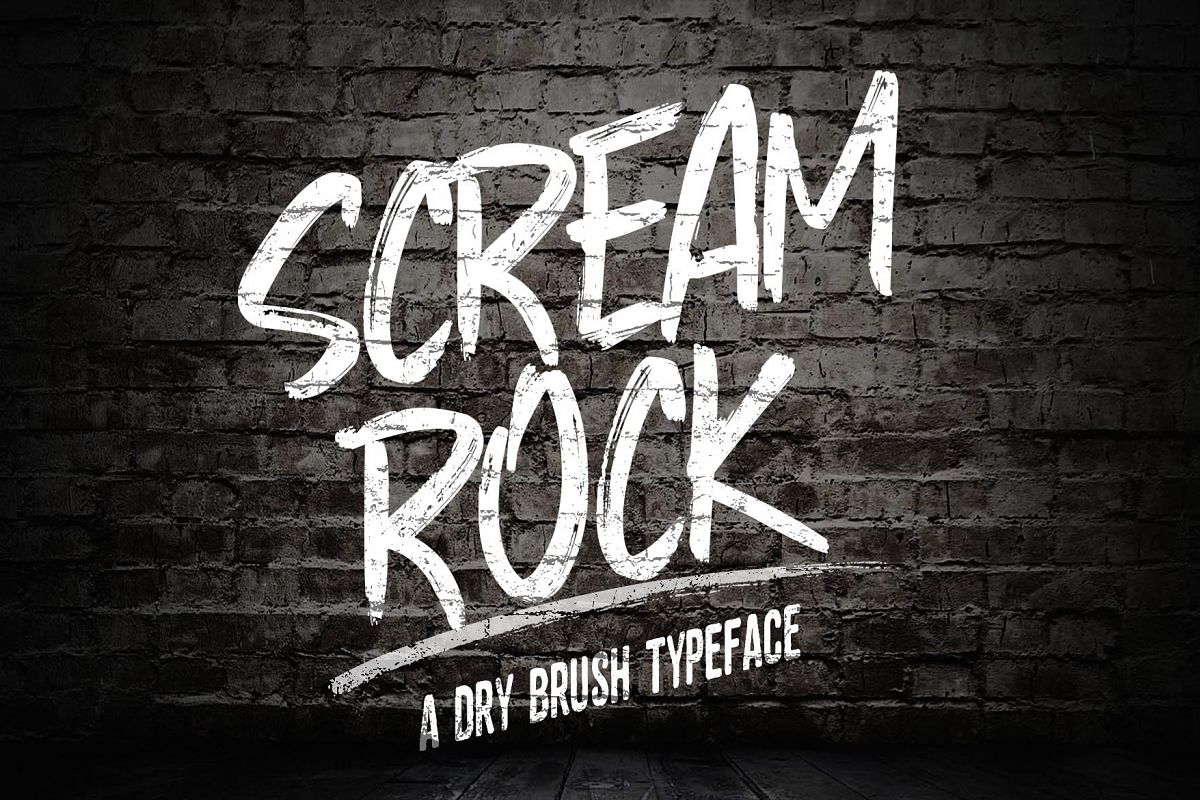
My finger was hit by fire last night. And the music from my computer
was playing rock music. That was inspiring me to make this font.
Scream Rock Typeface is a strong typeface, handmade with natural
drybrush. Very very very cool for your work guys (Logo, branding,
clothing, poster and others )